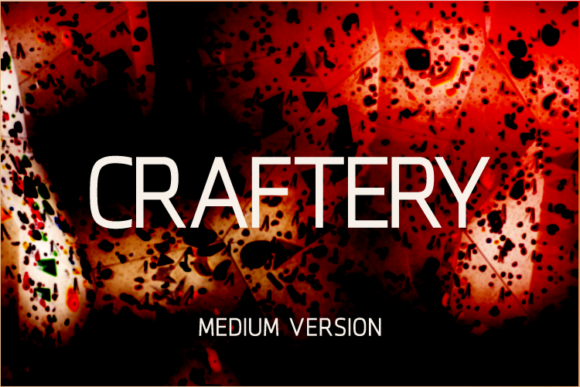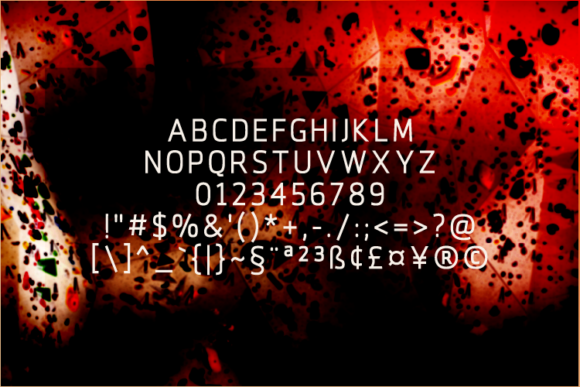
HomeSans Serif FontsCraftery Medium Font Sans Serif Fonts Craftery Medium Font FacebookXPinterestWhatsApp Craftery Medium Font 1 of 2 About Craftery Medium Font Craftery is a modern sans serif font inspired by the simplicity of classic geometric shapes. It will add a minimalist feel to any design project! DOWNLOAD NOW People also explored Child Plane Font Chemso Font Swallowtail Font Carlie Mark Font Little Farmhouse Font Bundle Wildcard Font Heartbroke Font Calstavier Font We Belong Together Font 326 0 TagsCraftery Medium Font Previous articleCraftery Semi-Bold FontNext articleCraftery Font LEAVE A REPLY Cancel reply Comment: Please enter your comment! Name:* Please enter your name here Email:* You have entered an incorrect email address! Please enter your email address here Website: Save my name, email, and website in this browser for the next time I comment. Personal Use Free Millea Personal Use Free Read more about this font Authurium Personal Use Free Read more about this font Osaka Personal Use Free Read more about this font Chandella Personal Use Free Read more about this font BLOG Top 10 Handwritten Fonts That Elevate Your Designs Top 10 Handwritten Fonts That Will Elevate Your Designs Handwritten fonts bring a warm, personal touch to every creative project. Whether you're designing logos, invitations,... Modern Sans-Serif Fonts That Brands Love in 2025 Exploring Font Trends Transform Your Website: Elevate Your Typography with 7 Best Web Font Generators